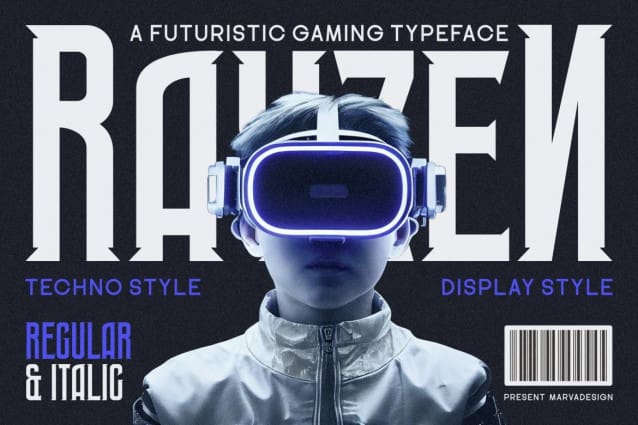
Rayzen Font
Rayzen Font – Futuristic Gaming Font, authentic display font. The font is suitable for all branding projects like Logo, Template Design, Products and many more. It is exceptional in a wide range of contexts